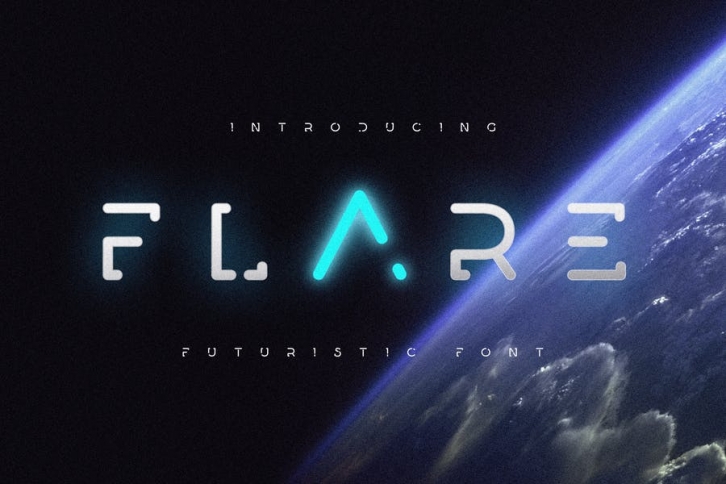
Introducing Flare - a futuristic science fiction font.
Perfect for technology, sci-fi, science and all kinds of futuristic projects. Create science fiction posters & flyers, website headers, high-tech logos and so much more!